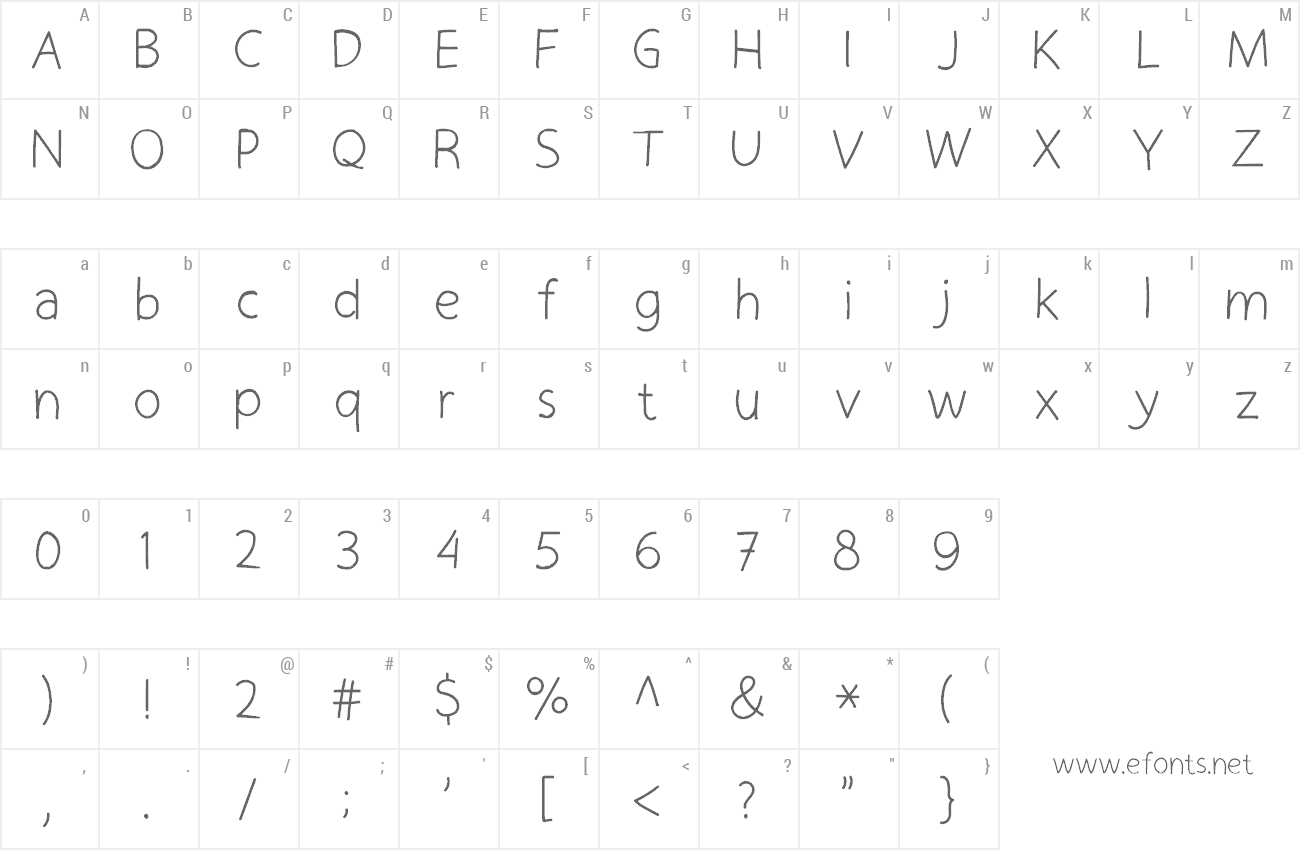
| Font name: | Komiko |
| Author: | Agustian Eko Saputro |
| Introducing Komiko, a cute comic font that will make your day more cheerful. This font is perfect for you who find a cute hand drawn font. In this package, you also get three extra cute cards. Enjoy Komiko! |